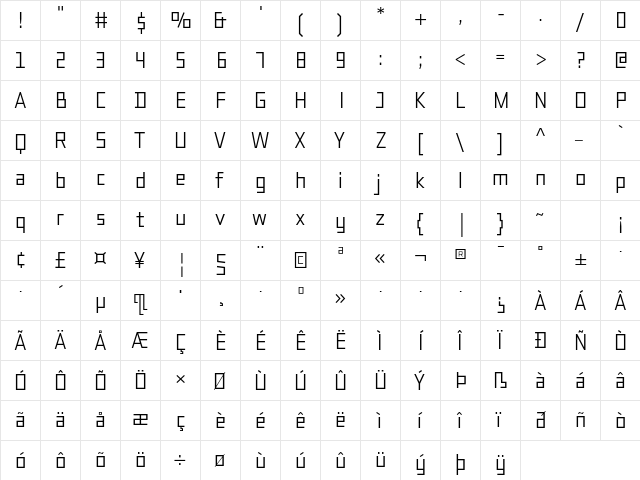
Entovo Regular Font Preview
Entovo Regular
Entovo Regular Font Details
| Foundry | Eric Olson |
| Designer | Eric Olson |
Design Context for Entovo Typeface
Entovo is a composed and adaptable typeface that performs quietly and consistently across a wide range of design contexts.